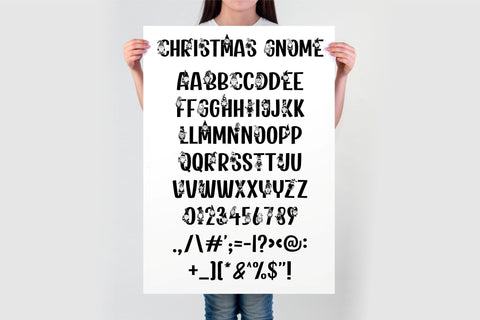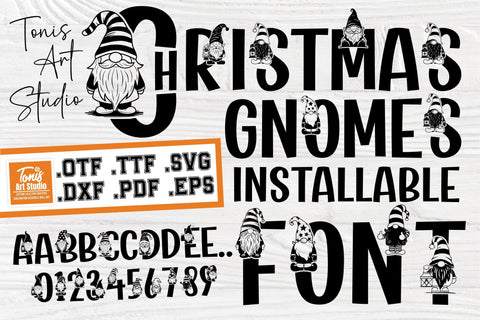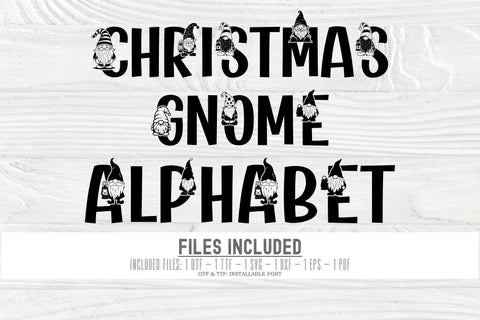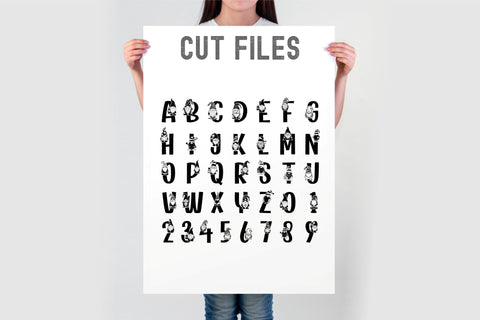
Gnome Font SVG OTF | Christmas Font | Winter Pattern Font
Bring holiday cheer to your creative projects with this comprehensive Christmas Gnome Font! This font is perfect for creating festive designs for cards, invitations, decorations, apparel, and more. Font comes in installable OTF and TTF formats, along with SVG, PDF, DXF, and EPS cut files for maximum versatility. Whether you're crafting with Cricut, Silhouette, or designing digitally, this font has everything you need to spread Christmas joy in your work!